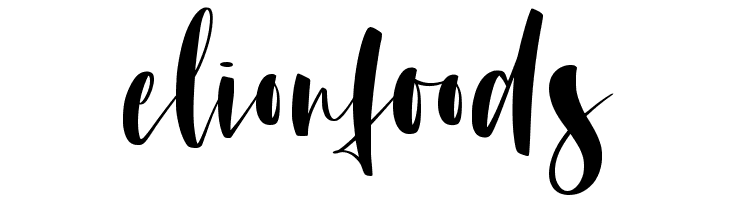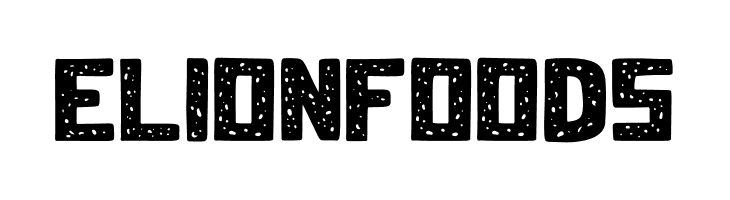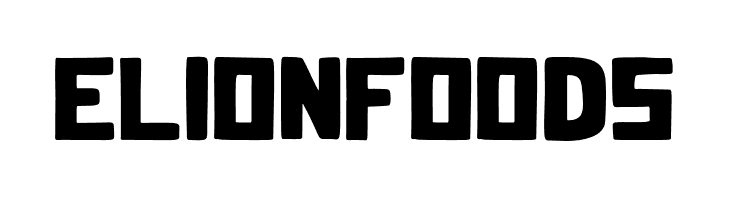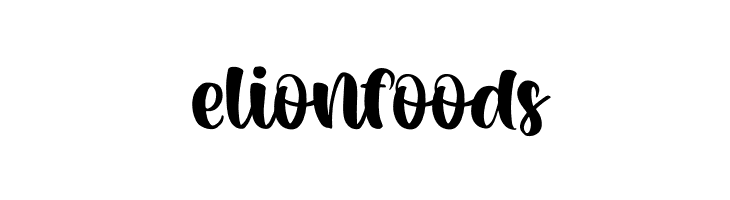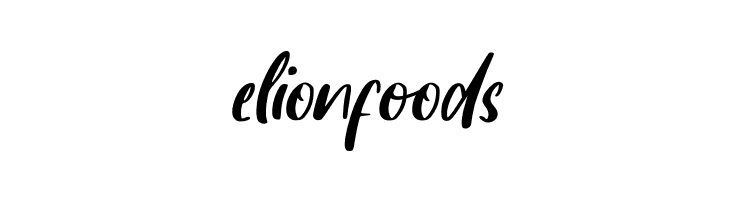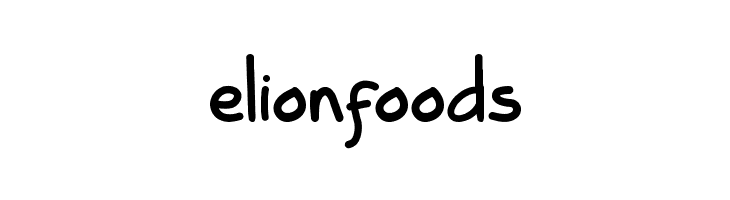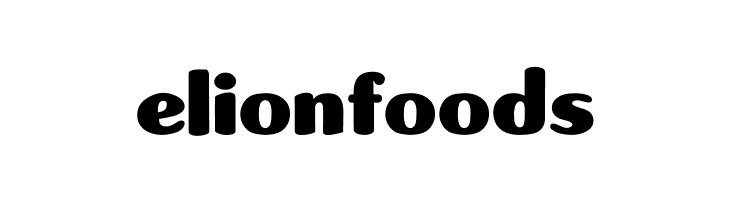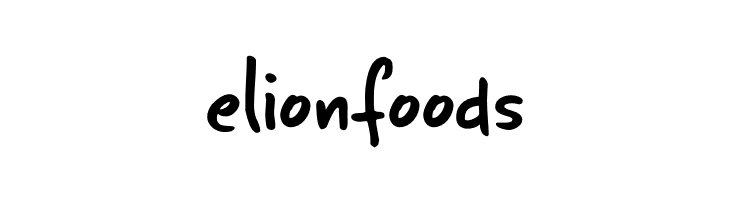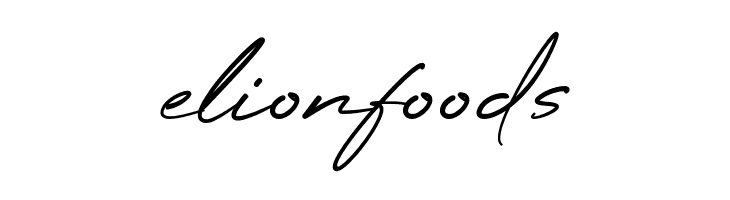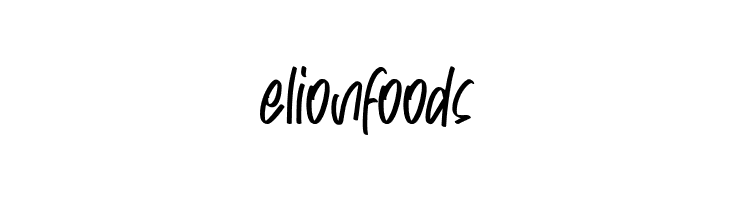
A bold, handwritten font with dynamic strokes and a lively style.
A distressed, vintage-style font with a bold and rugged appearance.
A bold, textured font with a hand-drawn, distressed appearance.
A bold, geometric font with a modern, assertive style.
A playful, handwritten font with elongated, narrow characters and a modern, informal style.
A bold, playful script font with a handwritten feel.
A lively, cursive script font with dynamic contrast and flowing strokes.
A playful, hand-drawn font with bold, rounded outlines and a whimsical style.
A playful, handwritten font with a casual and creative style.
A playful, bold font with rounded edges and a friendly appearance.
A playful, bold font with rounded edges and a friendly style.
A bold, expressive handwritten font with fluid strokes and dynamic style.
A bold, brush-style script font with a lively and energetic feel.
A playful, handwritten font with smooth curves and a casual style.
A fluid and elegant script font with smooth, flowing lines.
A casual, handwritten font with a playful and dynamic style.
A lively handwritten font with fluid, dynamic strokes and a playful appearance.
A playful, hand-drawn font with varied stroke thickness and a casual style.
A playful, handwritten font with rounded, informal characters.
A modern, elegant script font with flowing, dynamic characters and medium contrast.
A playful, handwritten-style font with tall, narrow letters and smooth, rounded edges.
A playful, handwritten font with smooth, flowing strokes and a casual vibe.
A playful, bold, and rounded handwritten-style font.
A playful, handwritten-style font with bold, rounded characters.
A playful, handwritten-style font with smooth, rounded edges and a casual vibe.
A casual, handwritten font with smooth, flowing curves and a lively slant.
A lively, cursive script font with smooth, flowing strokes.
A playful, outlined font with a hand-drawn, energetic style.
A playful, handwritten font with smooth, flowing letters and consistent stroke thickness.
A playful, tall, and narrow font with consistent stroke width.
A bold, playful script font with flowing, energetic letterforms.
A playful, handwritten font with rounded edges and consistent stroke width.